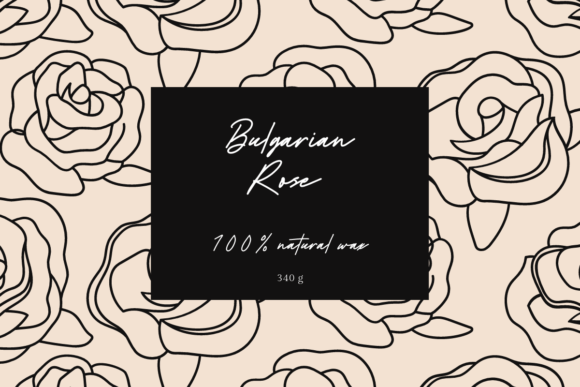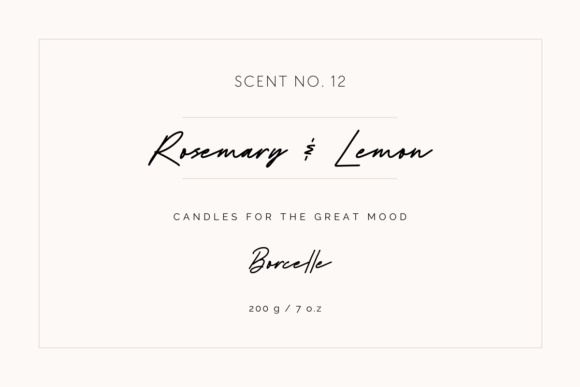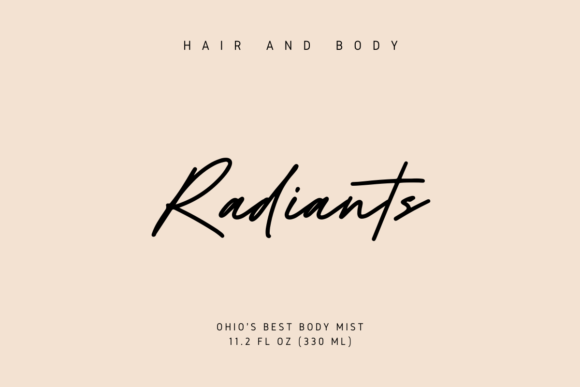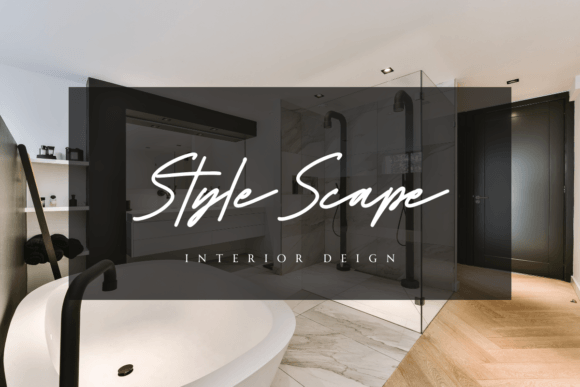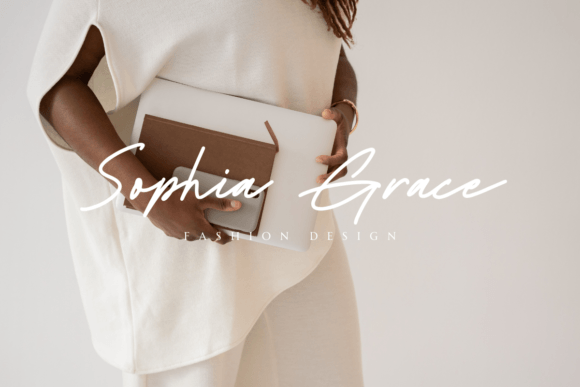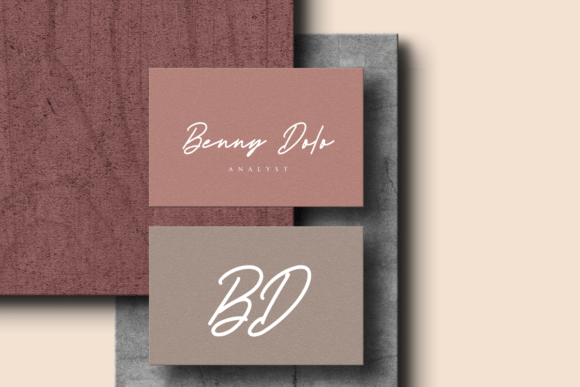
Introduction to Rationality Grateful Font
Have you ever been in the midst of a creative project, pouring your heart and soul into every detail, only to find the perfect font that elevates your design to the next level? For designers, this moment is pure magic. And that’s exactly what happens when you discover the Rationality Grateful Font.
This elegant handwritten font is more than just a design resource – it’s a game-changer. With its clean and modern design, it’s perfect for a wide range of creative projects, from wedding invitations to branding materials. The Rationality Grateful Font features delicate and flowing strokes that add a touch of femininity and grace to any design, making it a valuable addition to any designer’s toolkit.
Whether you’re working on a high-quality design project or simply want to add a personal touch to your social media posts, the Rationality Grateful Font is a free download that’s sure to impress. With its transparent background and high-quality design, it’s the perfect choice for any creative project that requires a touch of elegance and sophistication.
Key Features of Rationality Grateful Font
- High-quality font design with a transparent background, ideal for creative projects and design resources.
- Comes in a single size, making it easy to use in a variety of creative projects, from posters to social media graphics.
- Designed at a high resolution (300 DPI) for crisp and clear display, suitable for both digital and print media.
- Unique, handcrafted design with a grateful and optimistic tone, perfect for conveying a positive message in your creative project.
Honest Review: Rationality Grateful Font
I recently stumbled upon the Rationality Grateful Font and was pleasantly surprised by its unique design. This font has become a valuable addition to my design resource library, offering a high-quality and versatile option for creative projects.
- ✨ The transparent background feature makes it easy to combine with other design elements.
- ✨ The font’s modern and sleek design makes it suitable for a wide range of creative projects, from digital media to print materials.
- ⚠️ The font’s limited character set may be a concern for designers working on projects that require a broad range of characters.
- ⚠️ Some users may find the font’s bold lines a bit too harsh for certain design applications.
Overall, I’m impressed with the Rationality Grateful Font and would recommend it to designers looking for a high-quality, modern font for their creative projects.
Rationality Grateful Font
The Rationality Grateful Font is a high-quality design resource that can elevate your creative project to the next level. With a transparent background and crisp typography, this font is perfect for designers and artists looking for a unique and professional look.
Here are some tips to help you get the most out of the Rationality Grateful Font:
- Use the font in combination with other design elements to create a cohesive look.
- Experiment with different font sizes and colors to add depth and interest.
- Use the font to create a sense of hierarchy and emphasis in your design.
The Rationality Grateful Font is perfect for a variety of creative projects, including:
- Websites and landing pages
Alternatives to Rationality Grateful Font
Open Sans is a high-quality, free font perfect for creative projects. It has a clean and modern design that works well for both digital and print media. Its transparent background makes it ideal for use on websites and applications.
Compared to Rationality Grateful Font, Open Sans is more versatile and can be used for a wider range of design projects. While Rationality Grateful Font has a unique, handwritten feel, Open Sans is a more neutral and legible font.